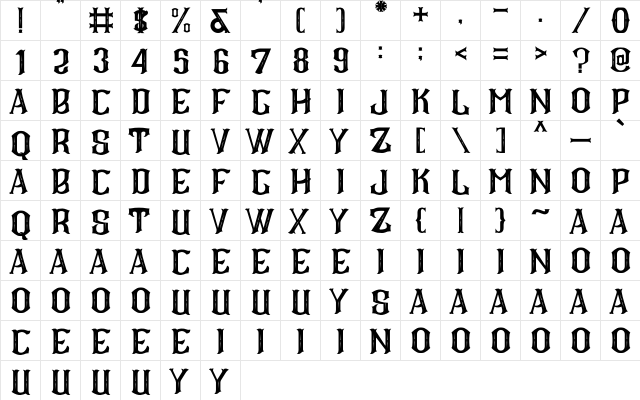
CS Roger Inner Regular
| Designer | Craft Supply Co. |
Design Context for CS Roger Inner Typeface
CS Roger Inner is a composed and adaptable typeface that performs quietly and consistently across a wide range of design contexts.